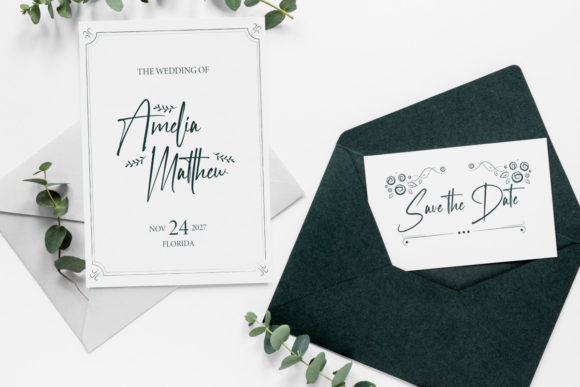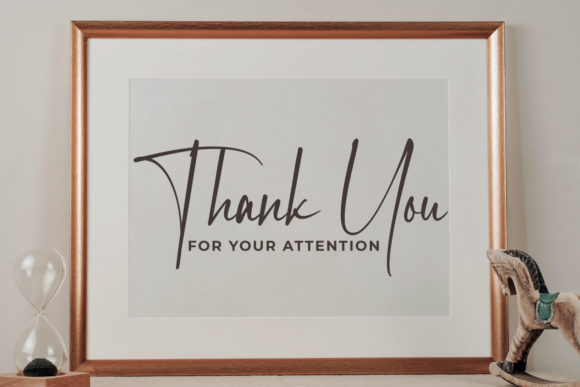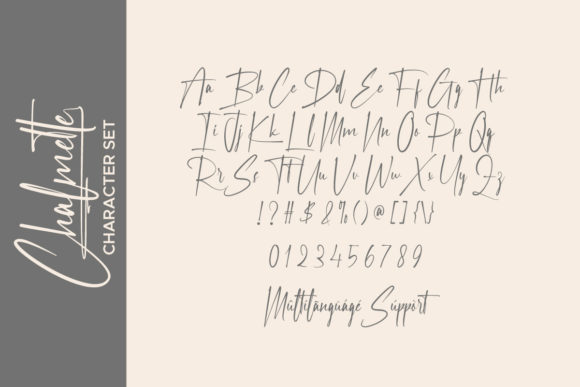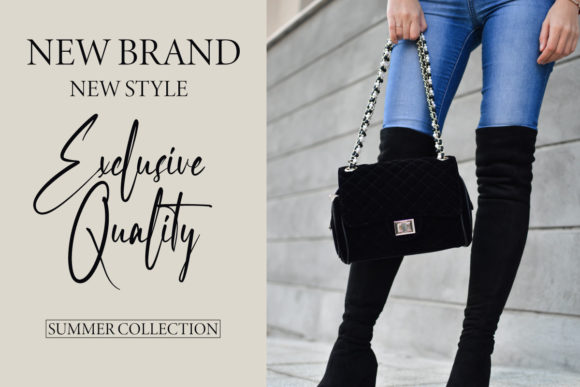
About Chalmette Font
Chalmette is a lovely script font with stylish and calligraphic characters. Great for any of your special projects including weddings, promotion, events, branding, advertising, magazine, shopping, signage, invitation, stationery, social media posts, and so much more! This font is PUA encoded which means you can access all of the glyphs and swashes with ease!